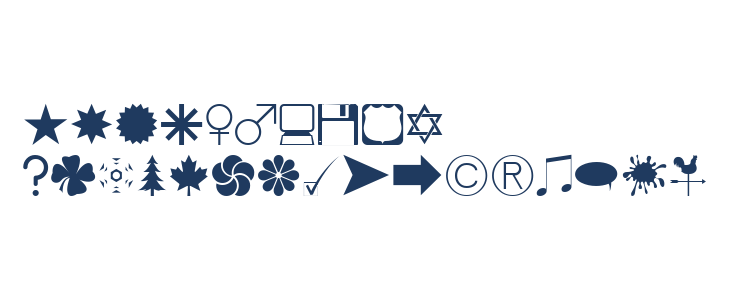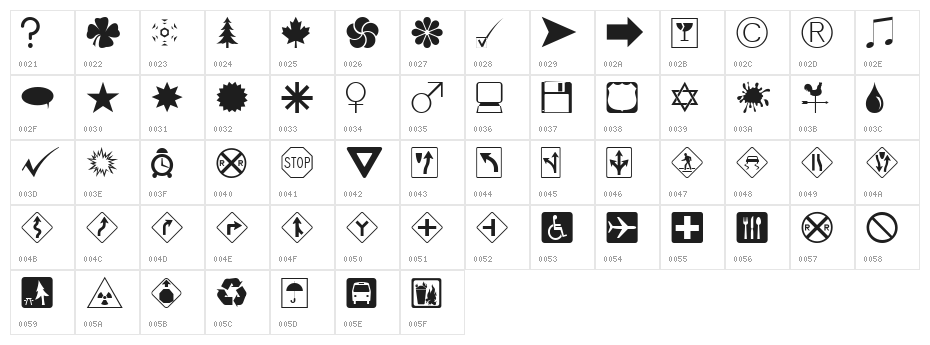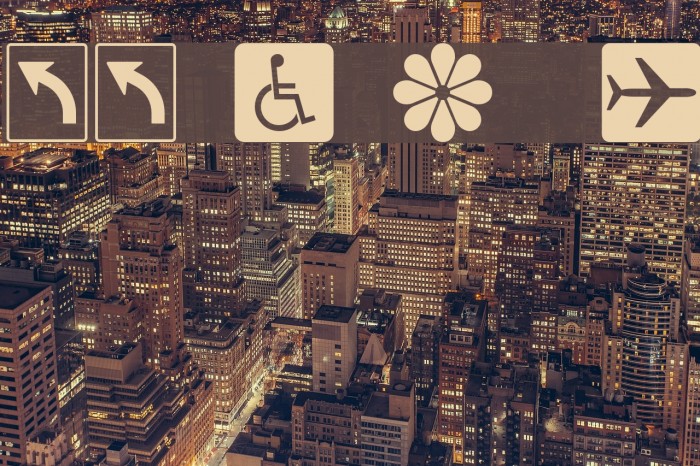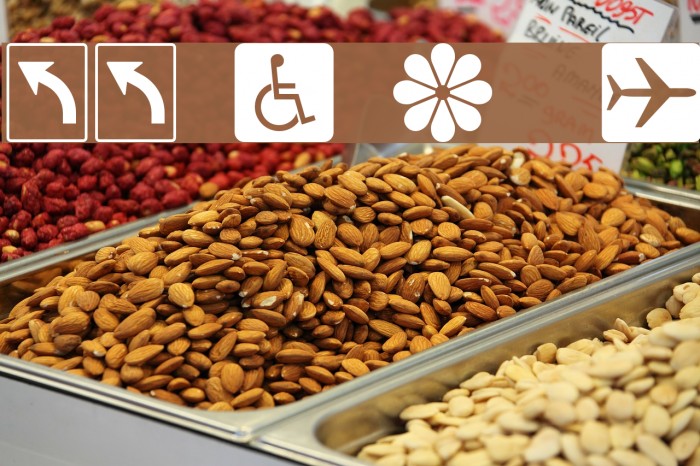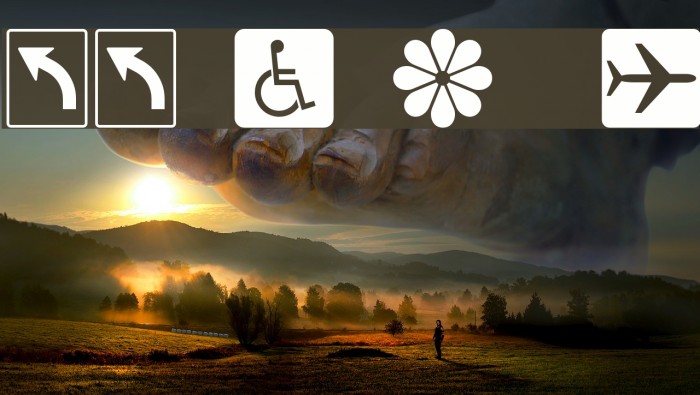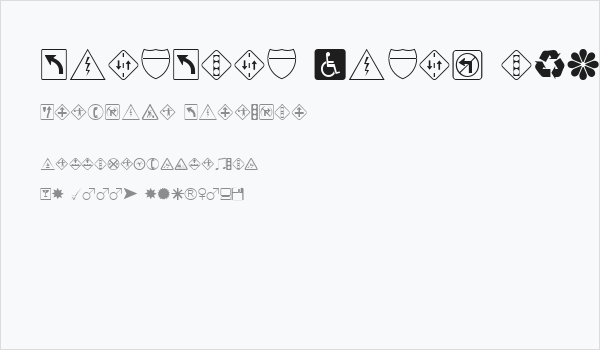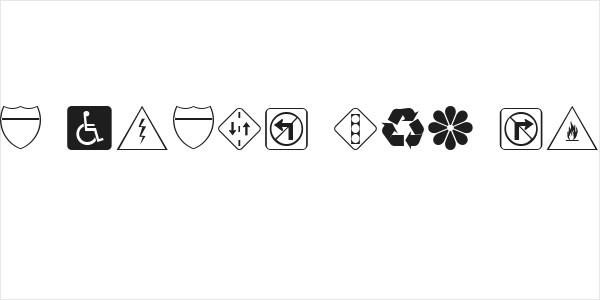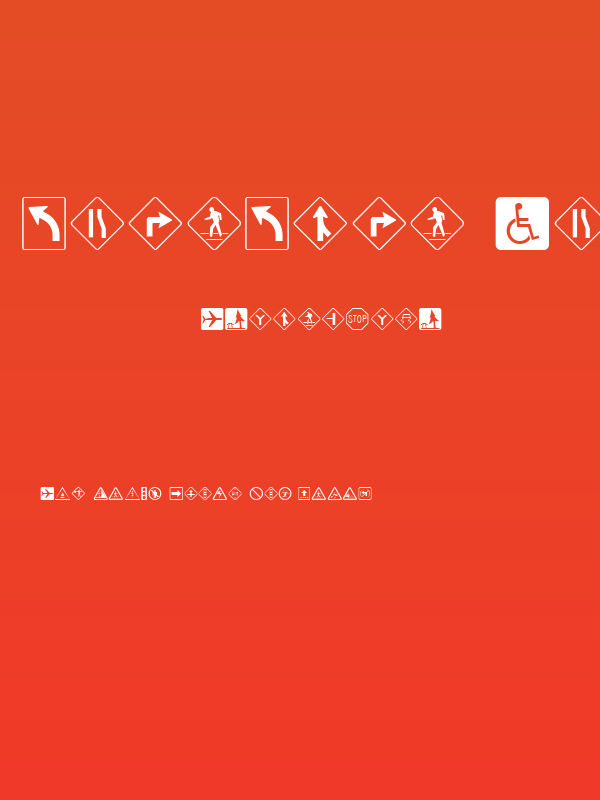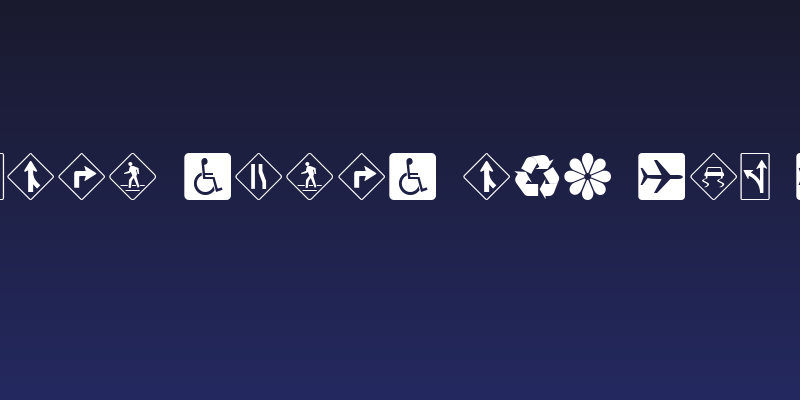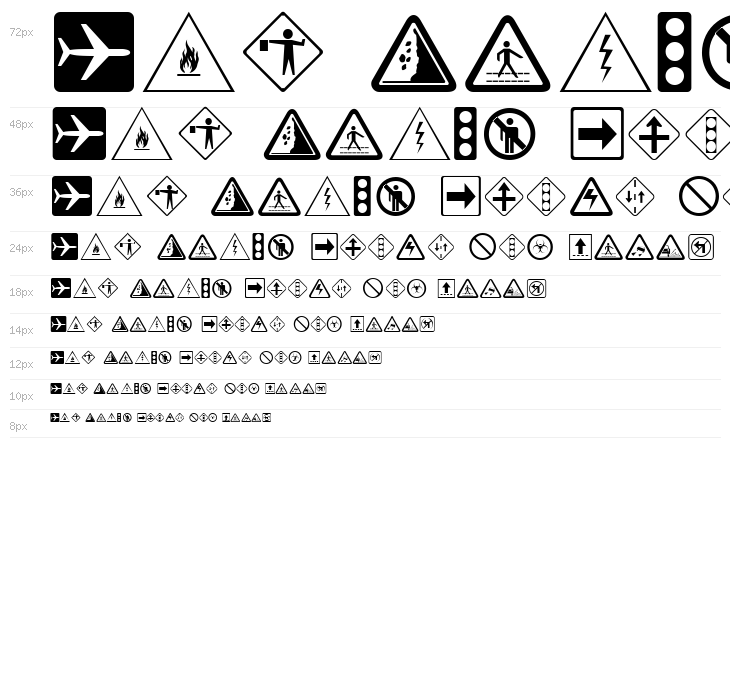
DingDong Signs o' the Times Font
DingDong Signs o' the Times Description
This collection features a diverse array of symbols and icons commonly found in road signs and public information displays. The symbols are bold and easily recognizable, designed for clear communication in various environments. The set includes directional arrows, pedestrian and vehicle indicators, hazard warnings, and informational signs. Each icon is crafted with simplicity and clarity in mind, ensuring they are universally understandable. The use of geometric shapes and high contrast enhances visibility, making them suitable for both digital and print media. These symbols are essential for creating signage that requires immediate comprehension and effective communication.
| Use Case | Signage, Public information, Instructional materials |
| Proposed Projects | Ideal for creating road signs, public information displays, instructional materials, and safety guides. |